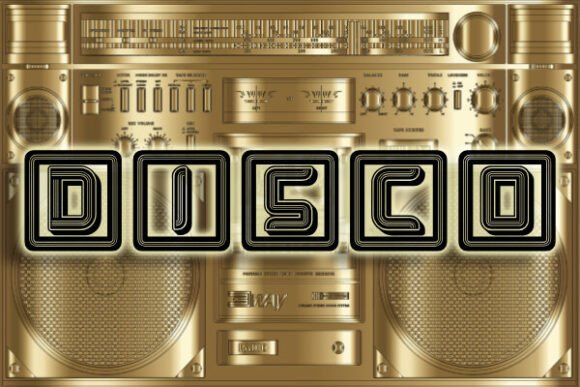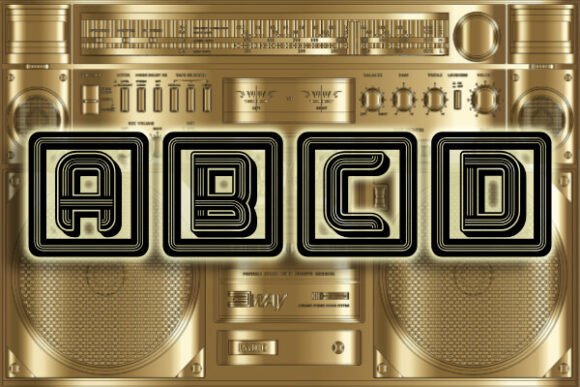
Introduction to Power Dance Font
Power Dance is a fun and decorative font where each letter is placed inside a square.
The letters are bold and playful, making it perfect for eye-catching designs This font adds a lively and energetic touch to any project.
Key Features of Power Dance Font
Why Choose Power Dance Font?
Power Dance Font offers exceptional quality and versatility, making it a valuable addition to your design toolkit. Whether you’re creating for personal projects or commercial use, Power Dance Font delivers professional results.